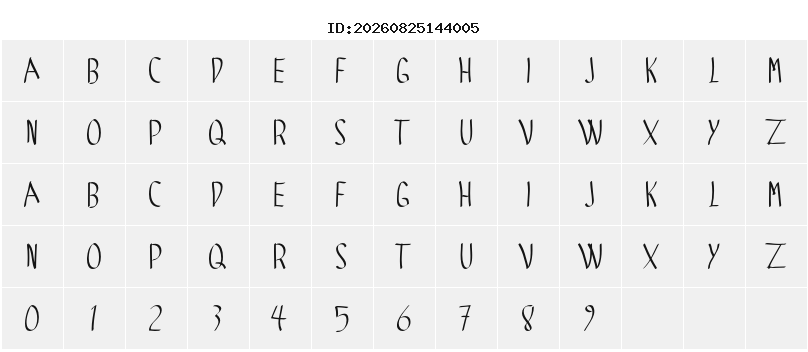
• Font Name: SPIDER GOTIC
• Full Font Name: SPIDERGOTIC
• PostScript Name: SPIDERGOTIC
About SPIDER GOTIC.otf
SPIDER GOTIC.otf is a modern, elegant sans-serif font designed for ultimate readability and visual harmony. Perfect for branding, headlines, web design, and print materials.